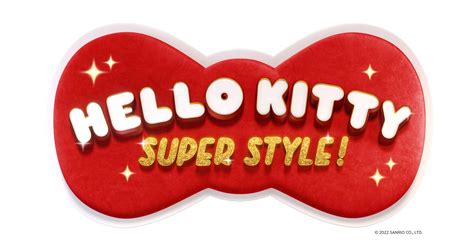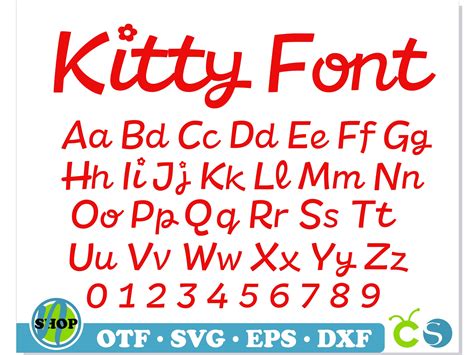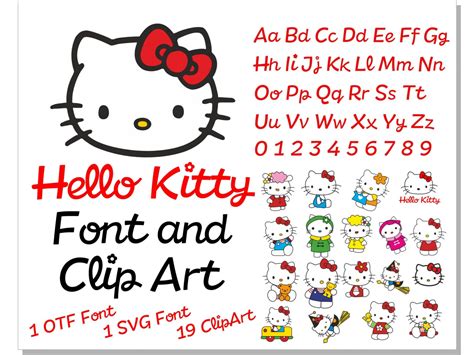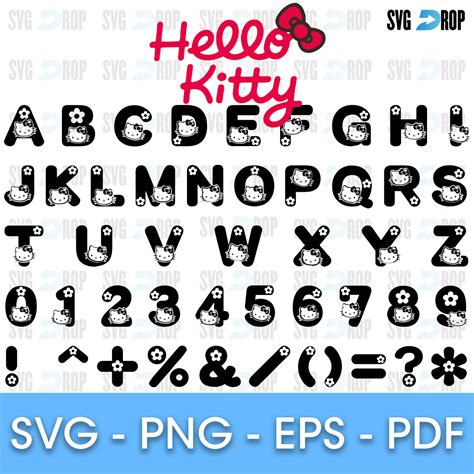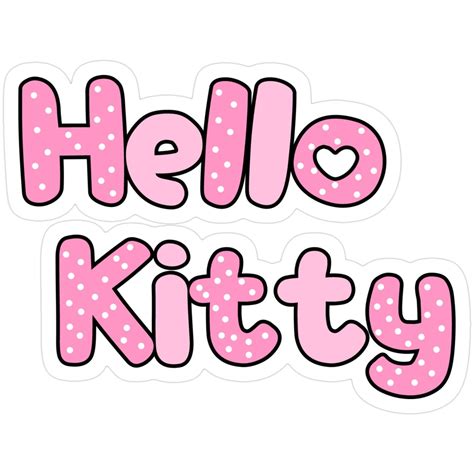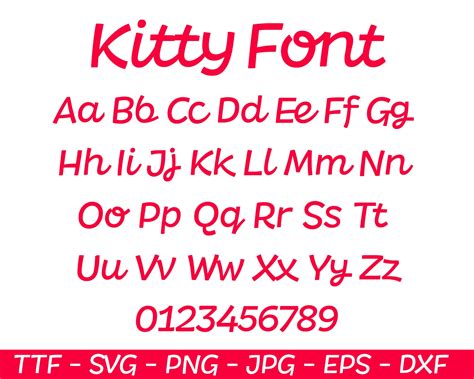
Hello Kitty, the iconic character created by Yuko Shimizu, has been a beloved figure in popular culture for decades. Her charming design and universal appeal have made her a staple in various forms of media, merchandise, and even typography. One of the most intriguing aspects of Hello Kitty's influence is the Hello Kitty Typeface, which has captured the hearts of designers and enthusiasts alike. This typeface not only embodies the whimsical and playful nature of Hello Kitty but also serves as a versatile tool for creative projects.
The Evolution of Hello Kitty Typeface
The Hello Kitty Typeface has evolved over the years, reflecting the character's enduring popularity and adaptability. Initially, the typeface was designed to complement the Hello Kitty brand, featuring rounded edges and a friendly, approachable style. Over time, various iterations of the typeface have been developed to cater to different design needs, from casual and playful to more sophisticated and elegant.
One of the key features of the Hello Kitty Typeface is its versatility. It can be used in a wide range of applications, from children's books and educational materials to fashion and lifestyle branding. The typeface's ability to adapt to different contexts makes it a valuable asset for designers looking to create visually appealing and engaging content.
Design Elements of Hello Kitty Typeface
The Hello Kitty Typeface is characterized by several distinctive design elements that contribute to its unique charm. These elements include:
- Rounded Edges: The typeface features soft, rounded edges that give it a friendly and approachable appearance. This design choice is consistent with Hello Kitty's overall aesthetic, which emphasizes cuteness and warmth.
- Playful Curves: The letters in the Hello Kitty Typeface often feature playful curves and loops, adding a sense of dynamism and energy to the text. These curves make the typeface visually interesting and engaging.
- Consistent Thickness: The strokes in the typeface have a consistent thickness, which helps to maintain readability and balance. This consistency ensures that the text remains clear and legible, even at smaller sizes.
- Whimsical Details: The typeface often includes whimsical details, such as small hearts or stars, which add a touch of playfulness and fun. These details can be customized to fit the specific needs of a project, making the typeface highly adaptable.
Applications of Hello Kitty Typeface
The Hello Kitty Typeface is incredibly versatile and can be used in a variety of applications. Some of the most common uses include:
- Children's Books and Educational Materials: The friendly and approachable design of the Hello Kitty Typeface makes it ideal for children's books and educational materials. It helps to create a welcoming and engaging learning environment.
- Fashion and Lifestyle Branding: The typeface's playful and whimsical elements make it a popular choice for fashion and lifestyle branding. It can be used to create eye-catching logos, packaging, and promotional materials.
- Event Invitations and Greeting Cards: The Hello Kitty Typeface adds a touch of charm and personality to event invitations and greeting cards. Its playful design helps to convey a sense of joy and excitement.
- Digital Media and Web Design: The typeface can also be used in digital media and web design to create visually appealing and engaging content. Its versatility makes it suitable for a wide range of online applications, from social media graphics to website headers.
Customizing Hello Kitty Typeface
One of the great advantages of the Hello Kitty Typeface is its customizability. Designers can modify various aspects of the typeface to suit their specific needs. Some common customization options include:
- Color Variations: The typeface can be customized with different color schemes to match the branding or theme of a project. Bright and vibrant colors can be used to create a playful and energetic look, while softer, pastel shades can add a touch of elegance.
- Font Sizes: The typeface is available in a range of font sizes, from small and delicate to large and bold. This flexibility allows designers to use the typeface in various contexts, from subtle accents to prominent headlines.
- Whimsical Elements: Designers can add or remove whimsical elements, such as hearts or stars, to create a unique and personalized look. These elements can be customized to fit the specific needs of a project, making the typeface highly adaptable.
Here is a table summarizing the customization options for the Hello Kitty Typeface:
| Customization Option | Description |
|---|---|
| Color Variations | Customize with different color schemes to match branding or theme. |
| Font Sizes | Available in a range of sizes for various contexts. |
| Whimsical Elements | Add or remove elements like hearts or stars for a personalized look. |